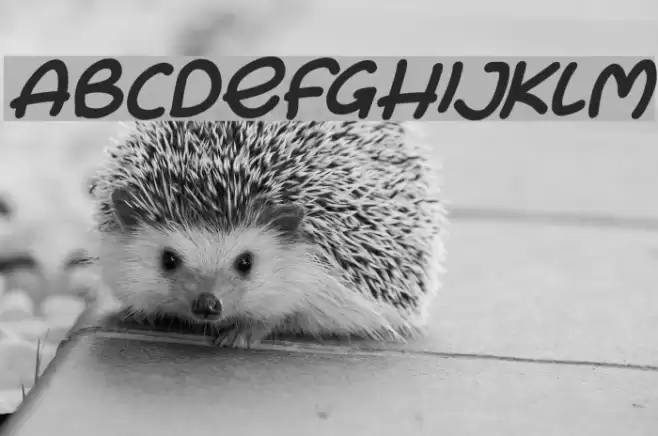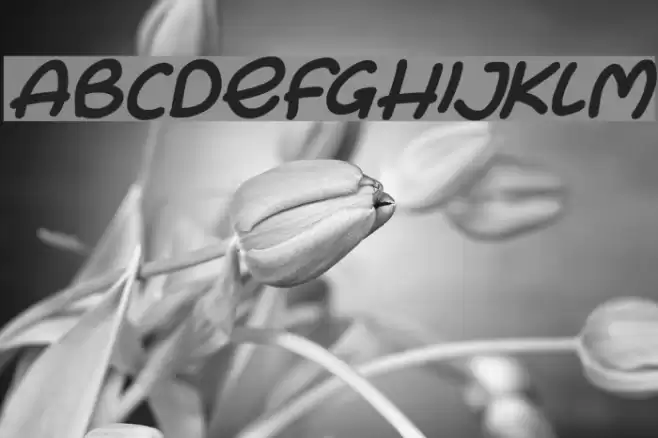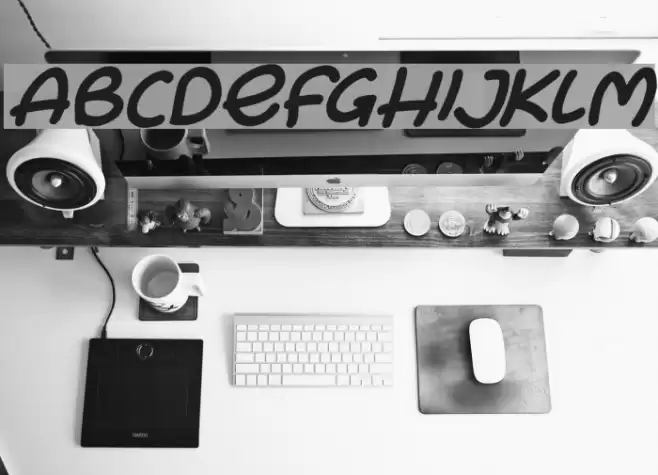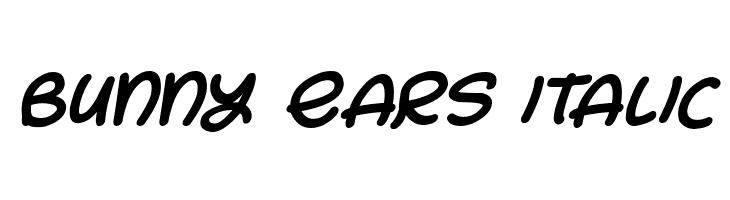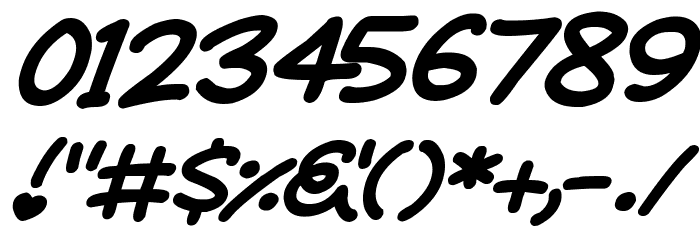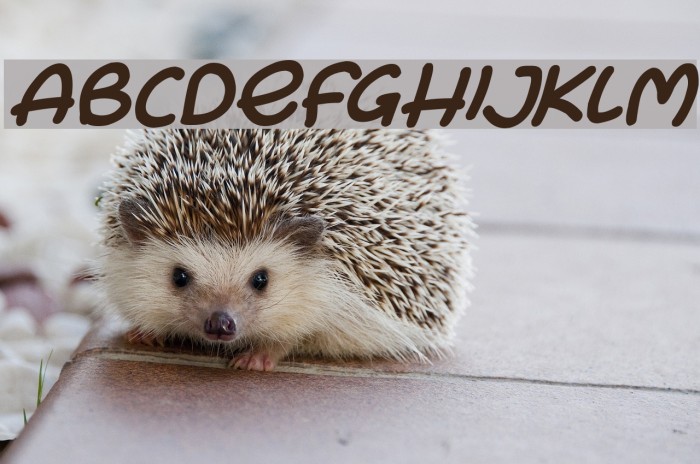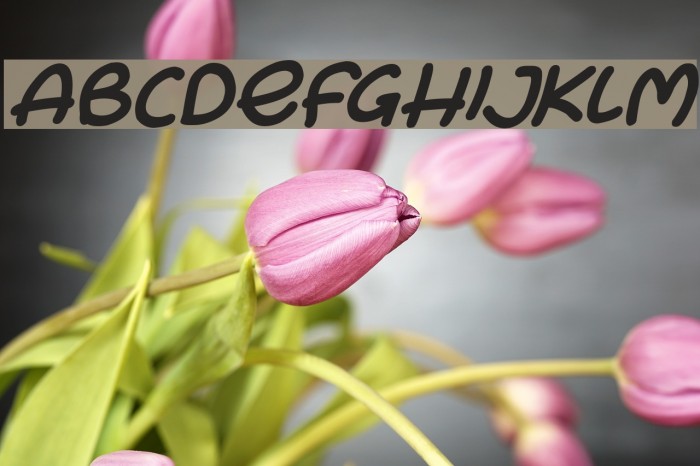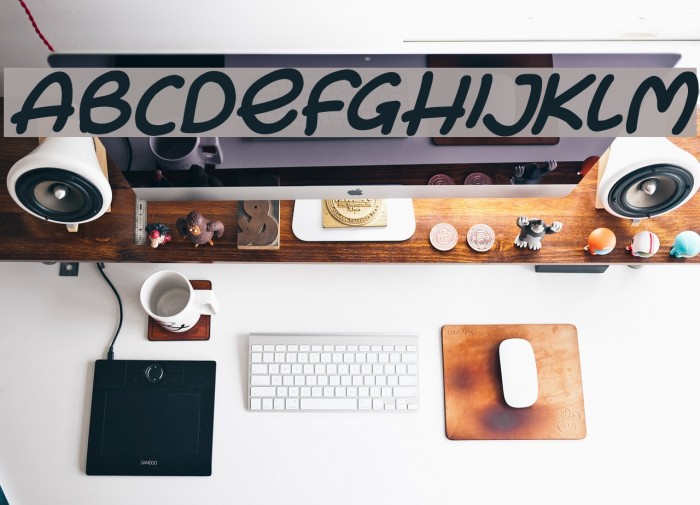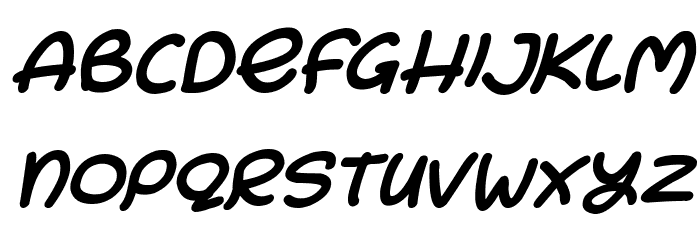
Bunny Ears Italic Font
Bunny Ears Italic Description
This playful and energetic font features a handwritten style with a distinct italic slant, giving it a dynamic and lively appearance. The characters are bold and rounded, with smooth curves and a consistent stroke width that adds to its approachable and friendly feel. The uppercase and lowercase letters maintain a cohesive look, while the numerals and special characters are designed to match the overall aesthetic. This font's unique style makes it suitable for projects that require a personal touch or a sense of fun and creativity.
A bold, italic handwritten font with smooth curves and a playful style from Uncategorized fonts.
- Proposed Projects: Ideal for greeting cards, children's books, playful branding, and social media graphics.
- Overall Style: Playful
- Use Case: Logos, Headlines, Informal Invitations